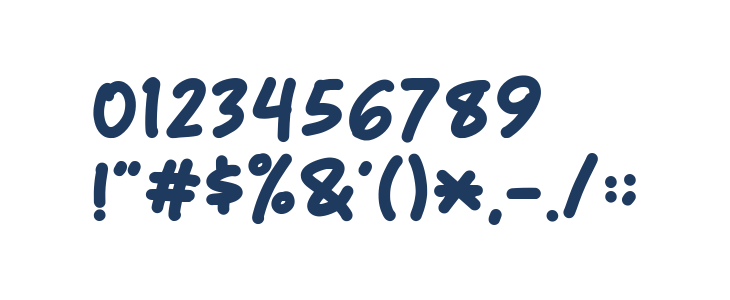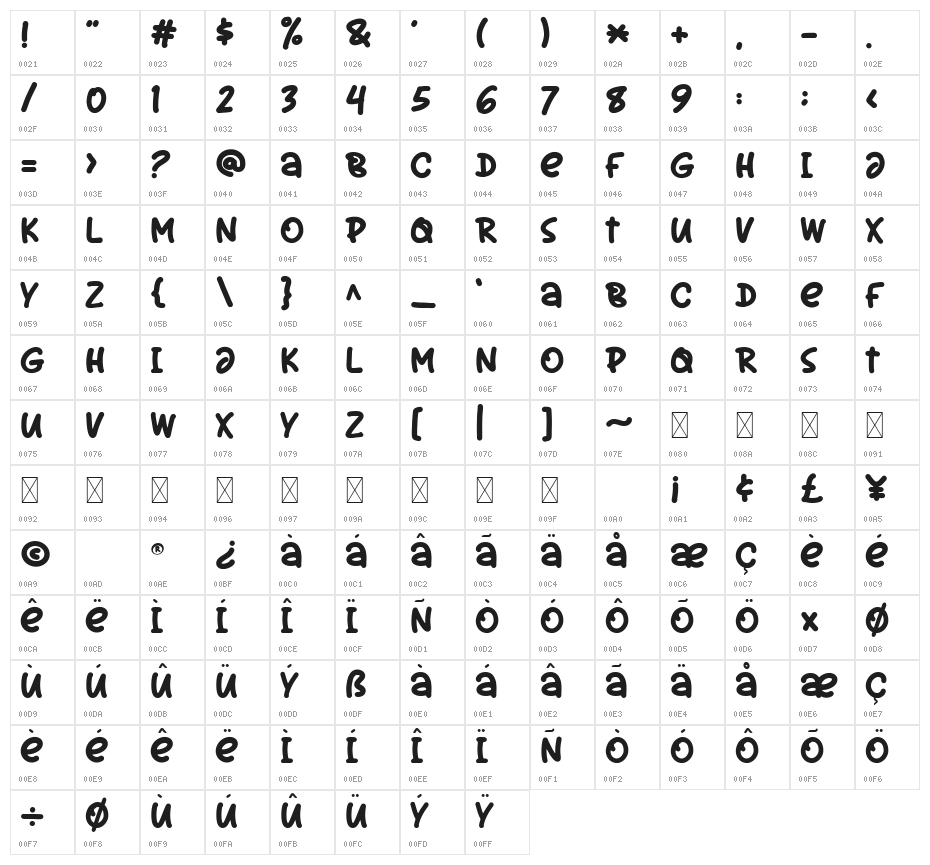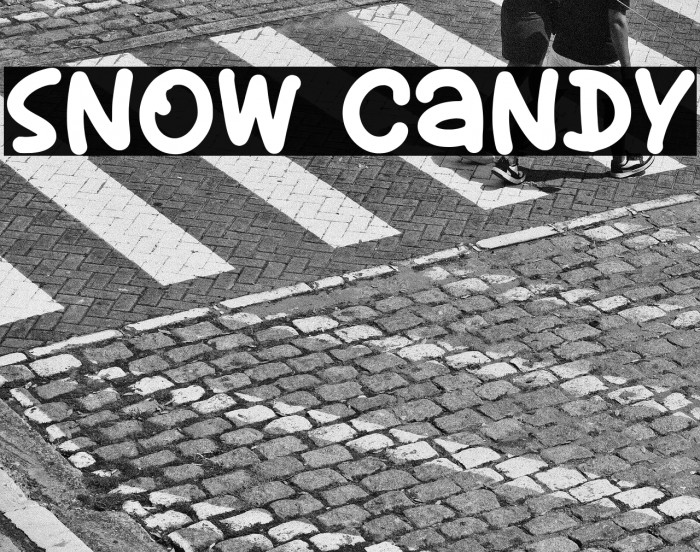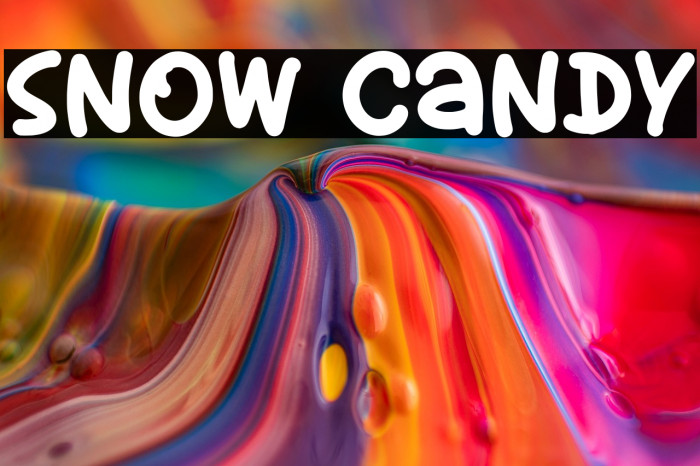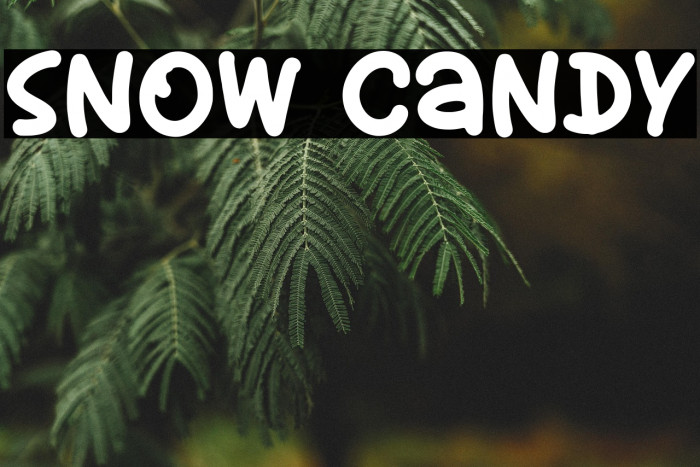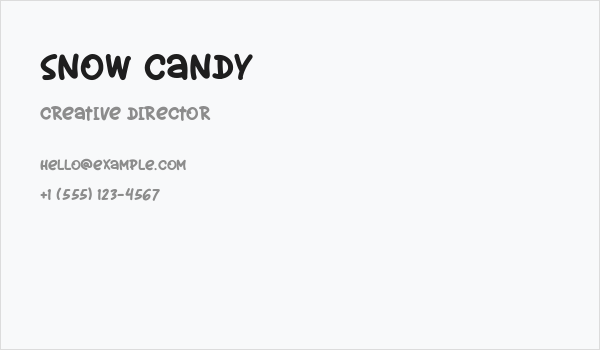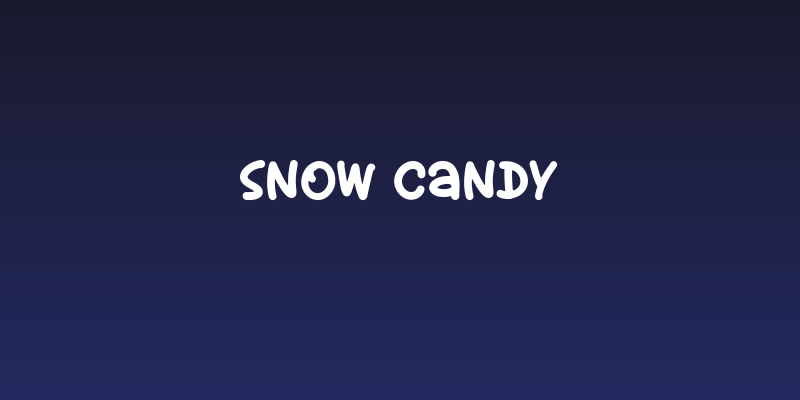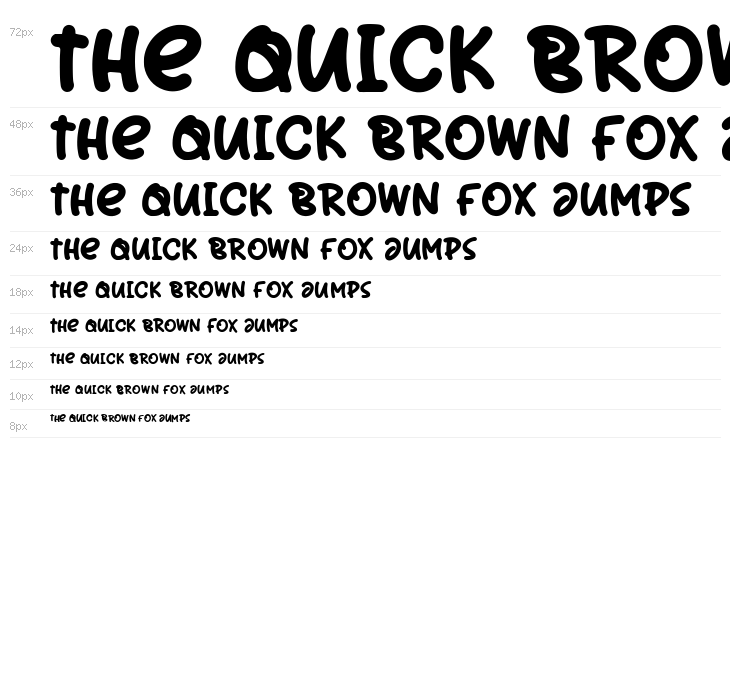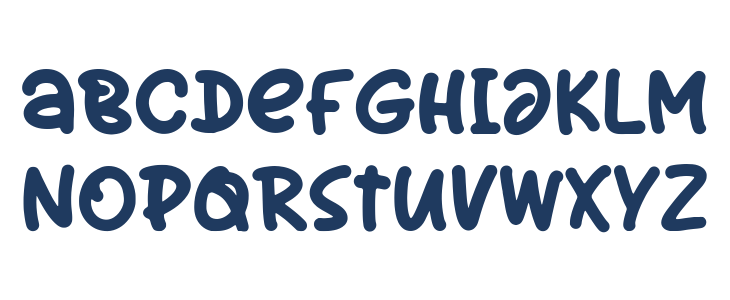
Snow Candy Font
Snow Candy Description
This playful and bold font features rounded, bubbly characters that convey a sense of fun and whimsy. The letters are thick and have a consistent stroke width, giving them a cartoonish appearance. The overall design is informal, with a handwritten style that adds a personal touch. The characters are well-spaced, ensuring readability while maintaining a lively and energetic feel. This font is perfect for projects that aim to capture attention with a cheerful and approachable vibe.
| Overall Style | Playful |
| Proposed Projects | Ideal for children's books, playful branding, party invitations, and casual social media graphics. |